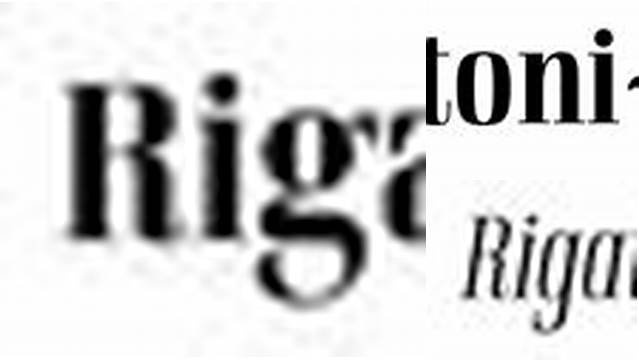
Rigatoni XT BD Font: Free Download & Usage Guide
Hey guys! Ever stumbled upon a font that just clicks? That's Rigatoni XT BD for me. It's bold, it's stylish, and it's perfect for a ton of different projects. If you're on the hunt for a font that makes a statement, you've landed in the right spot. This article will walk you through everything you need to know about Rigatoni XT BD, from where to snag it for free to how to use it like a pro. So, let's dive in and get those creative juices flowing!
1. What is Rigatoni XT BD Font?
Rigatoni XT BD isn't just another font; it's a design powerhouse. It's characterized by its bold strokes and contemporary feel, making it ideal for headlines, posters, logos, and more. What sets this font apart is its ability to grab attention without being overly flashy. It strikes a perfect balance between modern aesthetics and readability, ensuring your message gets across loud and clear. The font's robust design makes it suitable for both digital and print media, giving you the flexibility to use it across various platforms. The distinctive character shapes add a unique flair to your designs, helping you create a memorable visual impact. Understanding what makes Rigatoni XT BD special is the first step in harnessing its full potential for your projects.
2. Key Features of Rigatoni XT BD
So, what makes Rigatoni XT BD stand out from the crowd? Let's break down its key features. First off, its bold weight ensures high visibility, making it perfect for titles and headings. The font's clean lines and modern design lend a sophisticated touch to any project. It boasts excellent readability, even at smaller sizes, which is crucial for body text and paragraphs. Rigatoni XT BD also includes a comprehensive set of glyphs, supporting various languages and special characters. The consistent letterforms and spacing contribute to a polished and professional look, ensuring your designs are always top-notch. Plus, its versatility means you can use it for a wide range of projects, from branding and advertising to web design and print materials. Seriously, guys, this font is a game-changer!